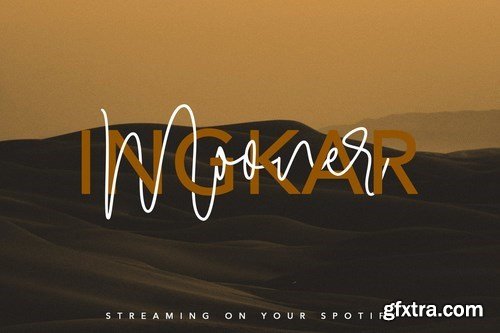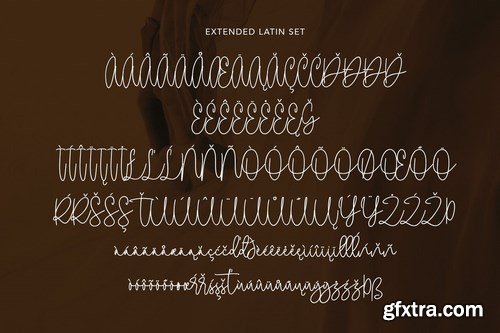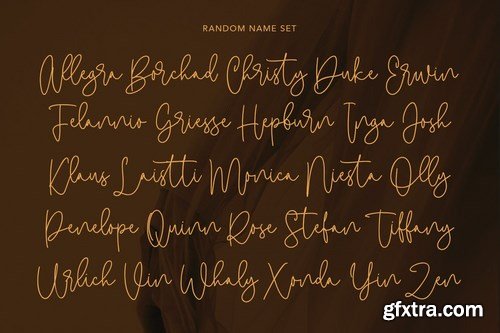
Bastyan script is a fancy casual script font With clean stroke, upright and fun character. It has Opentype features of rich ligatures character, To give you an extra creative work. Bastyan script script font support multilingual more than 100+ language. This font is good for logo design, Social media, Movie Titles, Books Titles, a short text even a long text letter and good for your secondary text font with sans or serif. Make a stunning work with Bastyan script font.